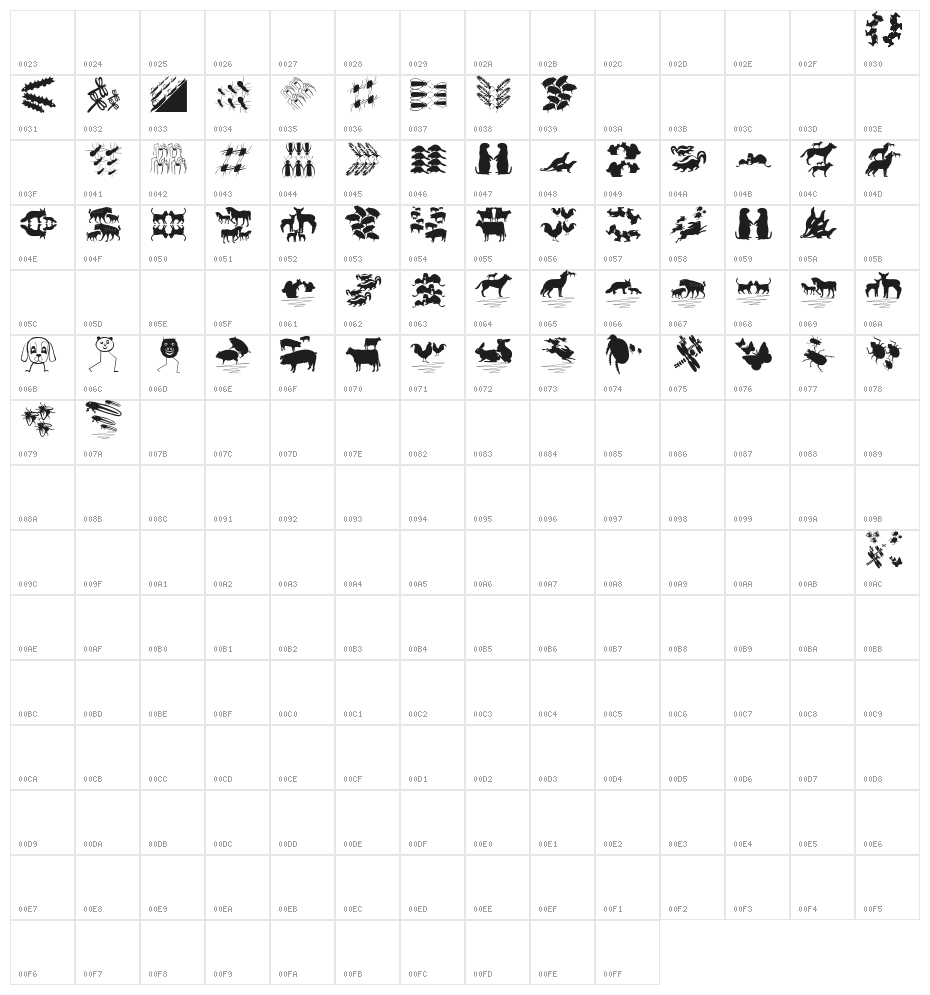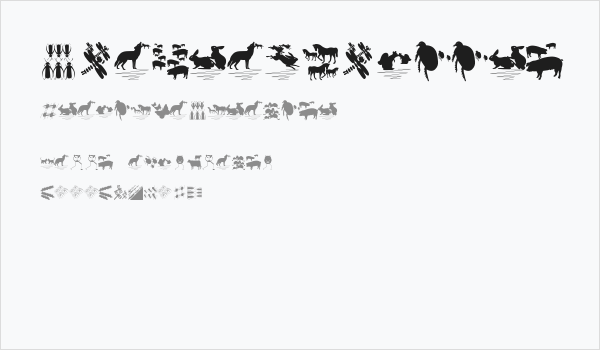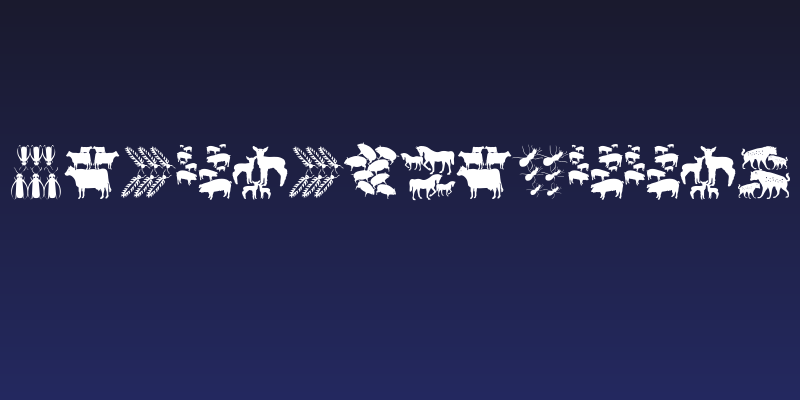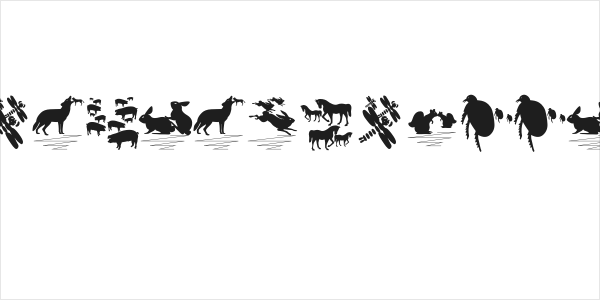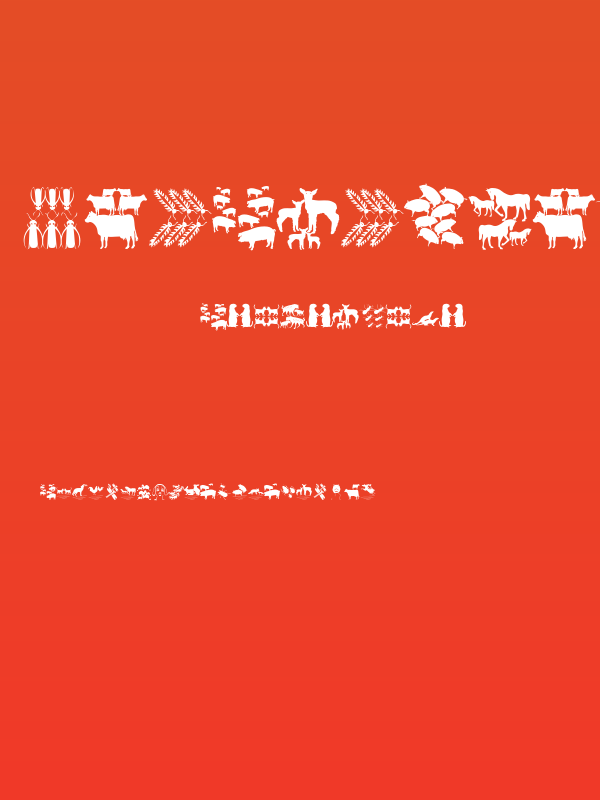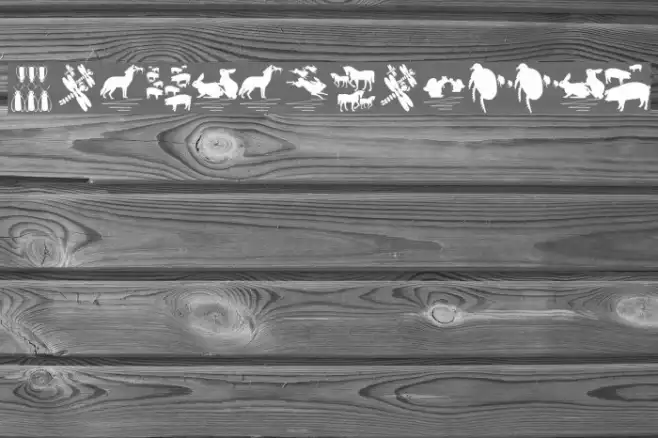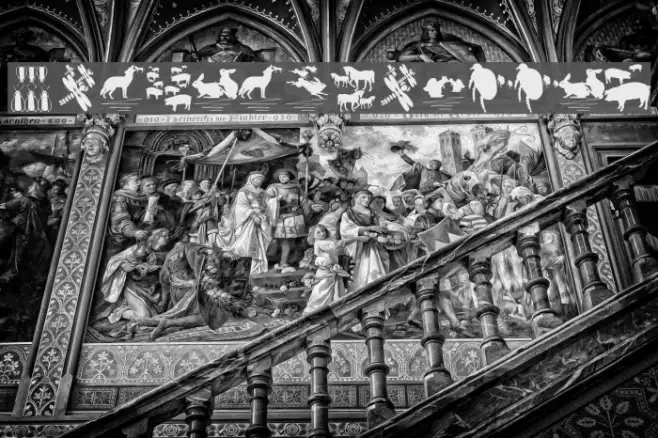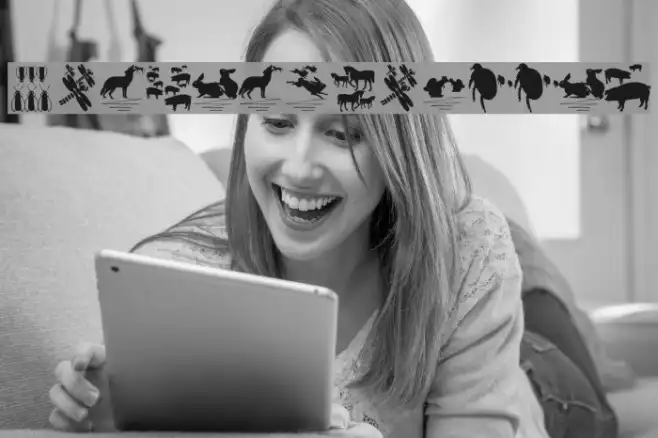
DueTresQuattro Font
DueTresQuattro Description
A highly decorative and illustrative font composed entirely of animal and insect silhouettes, with each character represented by a unique black-and-white pictogram. The glyphs are playful and detailed, making each letter or symbol visually distinct and thematic.
| Overall Style | Decorative, Playful, Illustrative |
| Use Case | Logos, Posters, Headlines, Themed graphics |
| Proposed Projects | Children’s books, educational posters, animal-themed branding, playful invitations, creative art projects. |